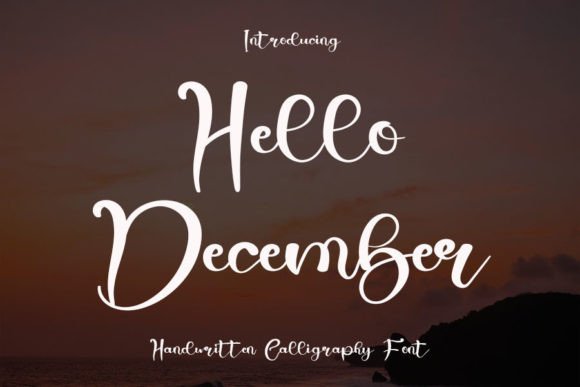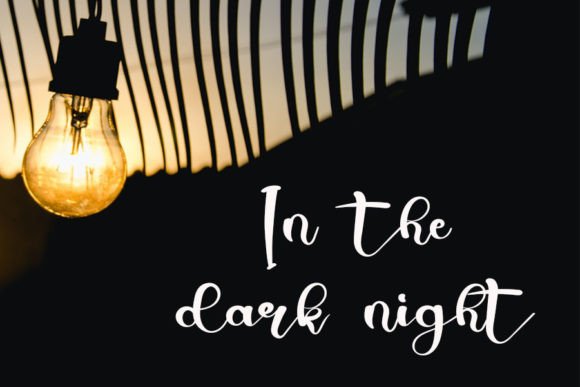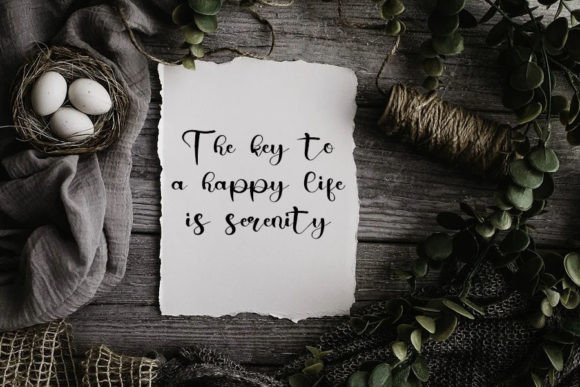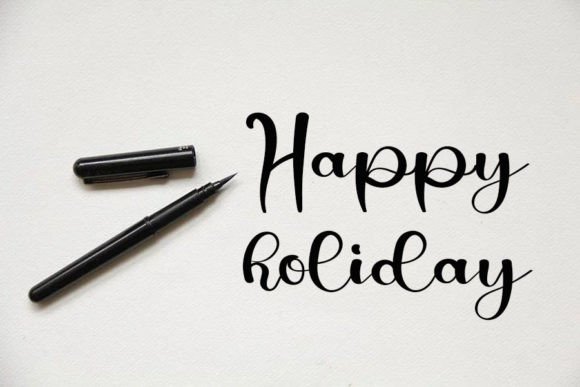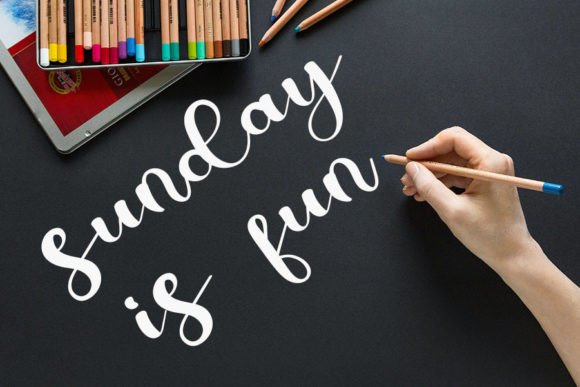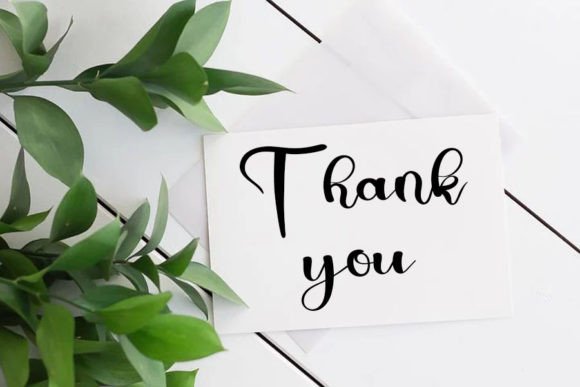
Hello December Font
About Hello December Font
Hello December is a friendly handwritten font carefully created with a touch of elegance. Clean and a little bit quirky, this font is the perfect fit for all of your logos, branding, social media posts, and crafty DIY projects.